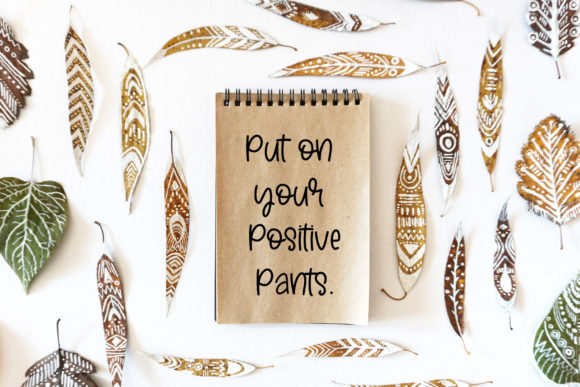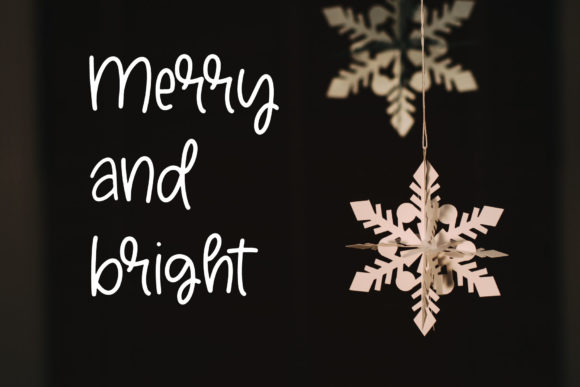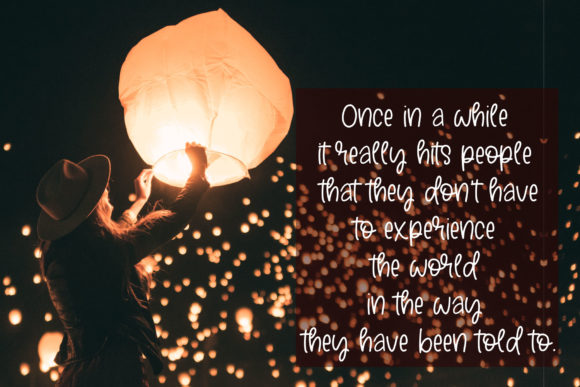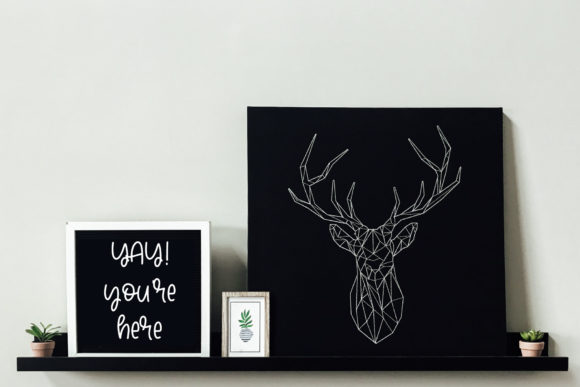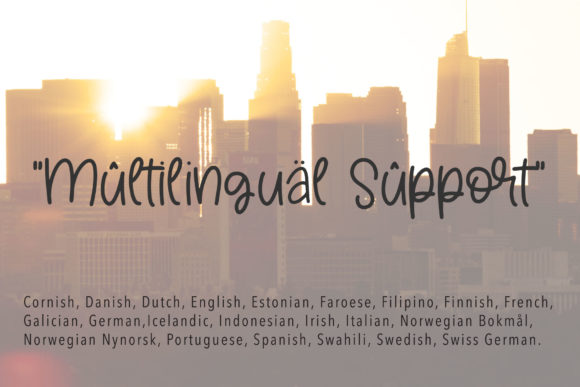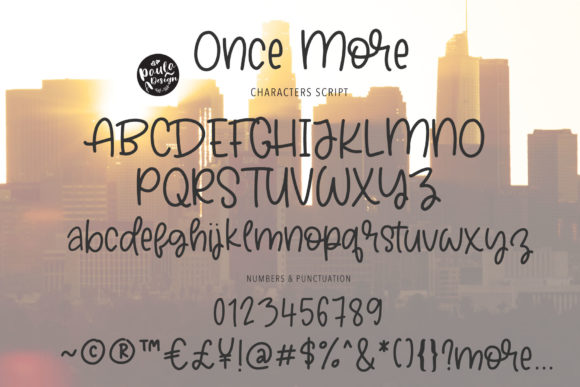
Once More Font
About Once More Font
The Once More is a simple, yet chic typeface. It was handwritten and is perfect for invitations, branding, blog posts, greeting cards, diy projects, labels, quotes, and much more!